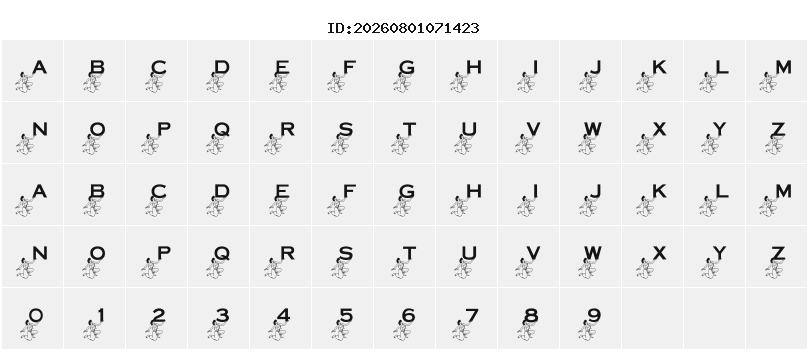
• Font Name: LMS Power In Your Corner Now
About LMS Power In Your Corner Now.ttf
LMS Power In Your Corner Now.ttf is a modern, elegant sans-serif font designed for ultimate readability and visual harmony. Perfect for branding, headlines, web design, and print materials.